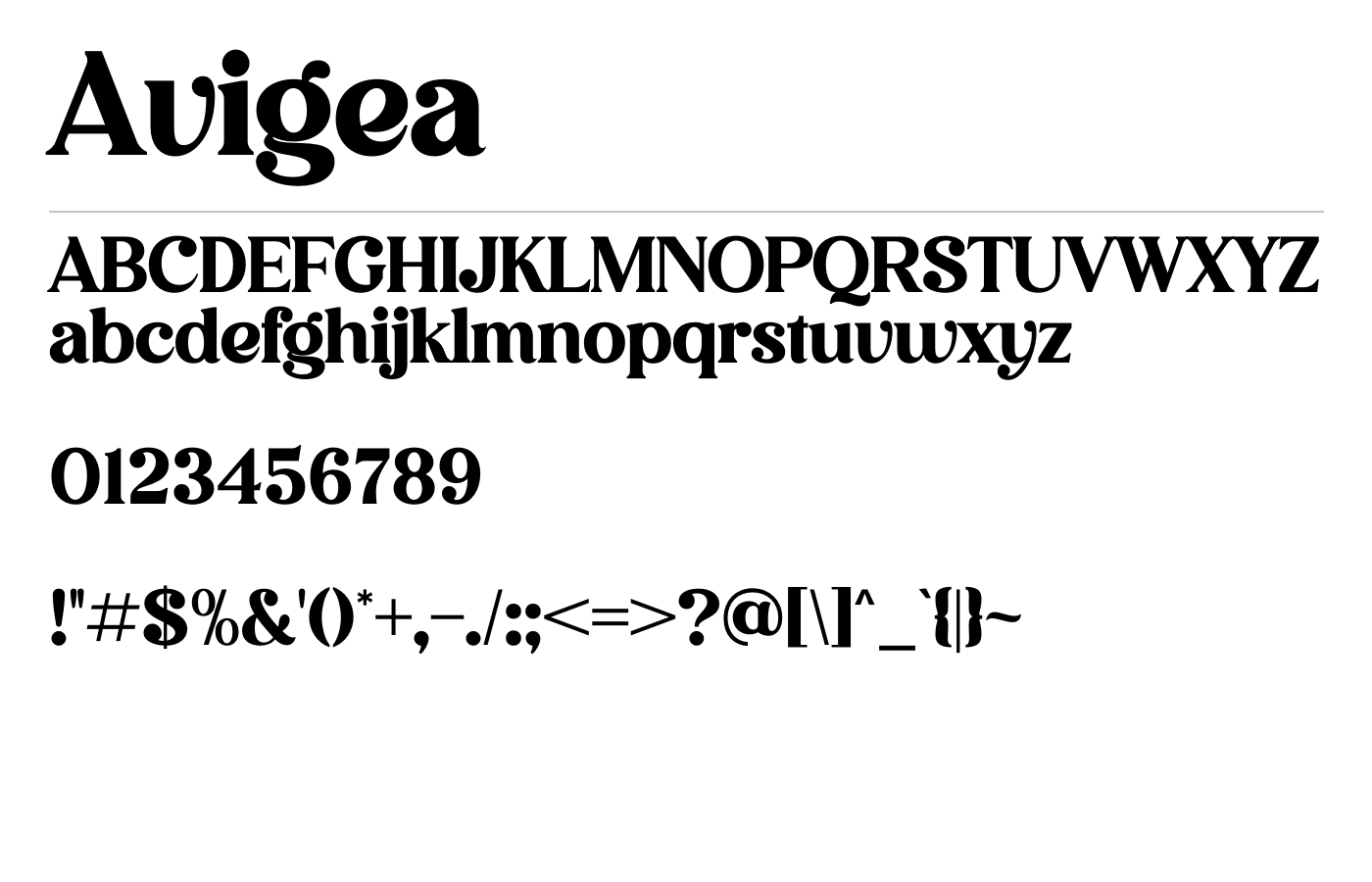
Avigea is a bold serif font with a strong presence, featuring thick, bracketed serifs and a moderate contrast between thick and thin strokes. It combines traditional elegance with modern flair through its unique letterforms, such as the single-story 'g' and stylized details in letters like 'Q' and 'R.' This font works beautifully for sophisticated branding, editorial headlines, and packaging where a confident yet refined look is desired.
Avigea Font
About Avigea Font